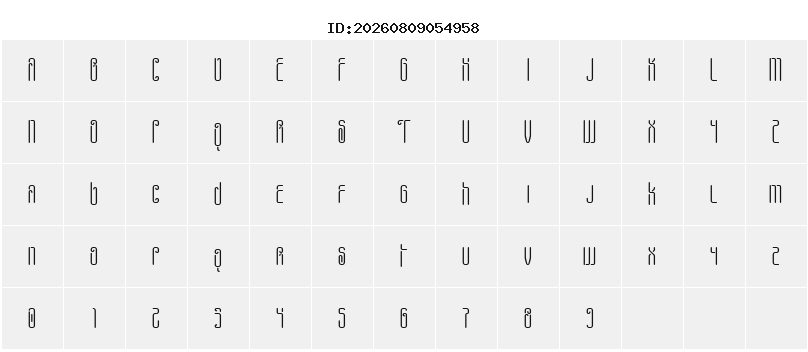
• Font Name: Pheanis Wickey
About Pheanis Wickey.ttf
Pheanis Wickey.ttf is a modern, elegant sans-serif font designed for ultimate readability and visual harmony. Perfect for branding, headlines, web design, and print materials.